Beginnings
Miller and Richard were once such a force in UK typefounding that Stephenson, Blake were concerned that they could become a significant threat to them should they merge with Caslon. Whether it’s their closure more than seventy years ago, or their size, M&R are not quite as well represented on the web as other UK founders.
The firm was founded in 1809 by William Miller, formerly works manager of Alexander Wilson‘s foundry. The first specimen of types was issued in 1809 with a further specimen of 28 pages being issued in 1813. When Miller’s son-in-law, joined the firm as a partner in 1832 the firm became ‘William Miller & Co.’ for a period, but reflecting Mr Richard’s role, it became ‘Miller & Richard’ in 1838.
The firm was based in Reikie’s Court, a collection of buildings off 65 Nicholson Street, Edinburgh. As the firm grew their footprint grew, and took in other buildings adjoining the court.
M&R adopted the 1838-invented Bruce Pivotal Type Caster in 18491. They also supplied a portion of the massive amount of type needed for the Official Catalogue of the Great Exhibition of 1851. This type was the smallest cut in England at the time being ‘Brilliant’, or 4pt.
Three-hundred and thirty-eight tons of paper supplied by Spicer Bros nearly forty-eight tons of new type cast by Besley, Caslon, Clowes, Figgins and Miller & Richard in six weeks and nearly three tons of Shackell and Edwards’ printing inks were consumed in the production of what must have been the largest printing job of the century, the thirty or so official publications on the Great Exhibition.
Incidentally, Miller and Richard’s Egyptian was one of the resurrected block faces used for the Festival of Britain in 1951.
Typographical Influence
Modern or Scotch Roman
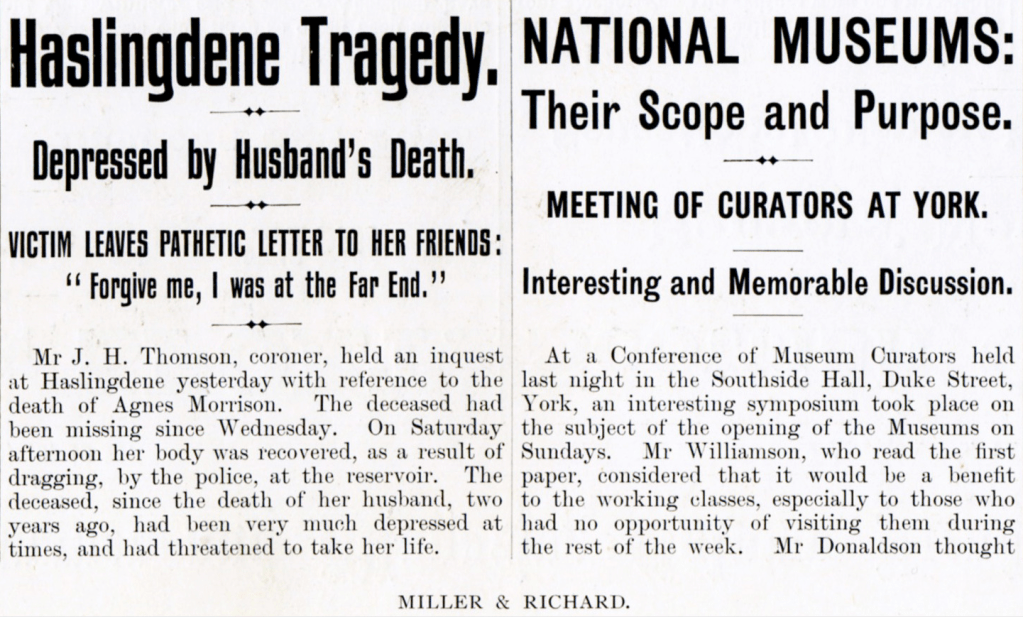
Richard Austin cut early and distinctive types first shown in William Miller’s specimen books from 1813. These typically had a strong vertical axis, and a contrast between strokes. Unlike Bodoni, for example, they also had bracketed serifs, rather than sharp lines.
This style of type was the dominant look for newspaper and book composition for a long period, with M&R themselves providing the relief from these Scotch Romans with their ‘Old Styles’ from about 1860.
Such was their domination in newspaper types, that it was 1929 before The Times looked to refresh the face they used. This was an 1850 Miller and Richard face that had been re-cut by Monotype (as Monotype Series No. 7) in 1908. The lead for this re-work, Stanley Morison, was determined to keep the retain the proportions of this M&R design2.
Old Style
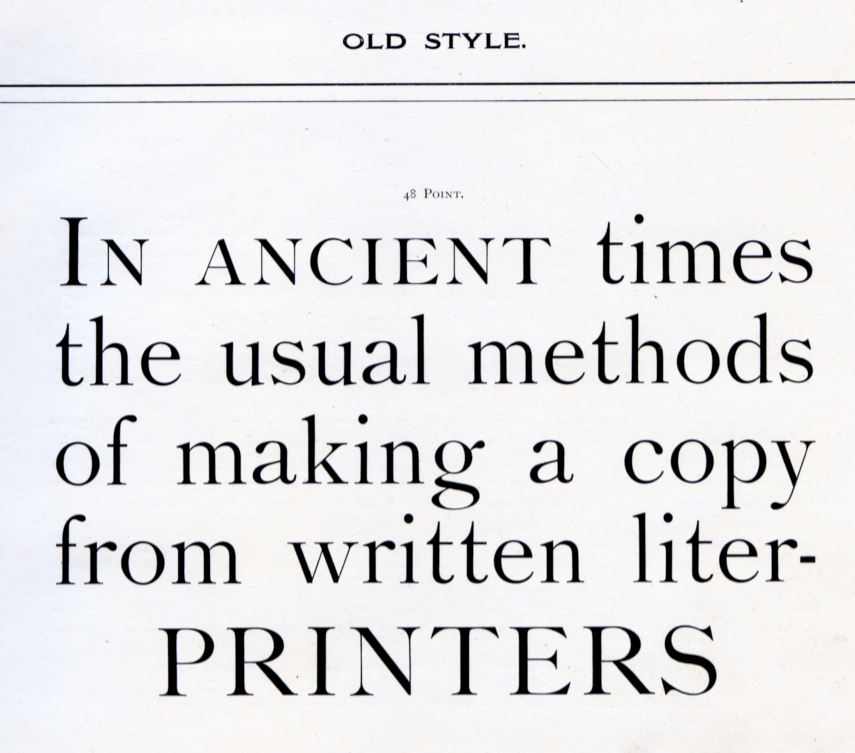
In 1860 Miller and Richard issued Old Style. It had been cut by Alexander Phemister and was shown in eight sizes from pearl (5pt) to great primer (18pt). The Miller and Richard Old Style was a great success. As other founders saw the demand this was driving, they each cut their own particular versions.
“they [Miller & Richard] have endeavoured to avoid the objectionable peculiarities, whilst retaining the distinctive characteristics of the mediæval letters”
Recent/20th Century
Having made a significant typographic impact on the face of Britain’s printing, M&R, in common with other British typefounders, struggled with competition from increasing mechanisation as the linecasting and Monotype machines took the place of metal types cast individually and assembled by hand.
The firm changed shape in 1926 when they approached Stephenson, Blake of Sheffield to ask them to cut woodletter in their Sheffield woodworking shop that had been established in 1907. Just over ten years later, Miller and Richard closed their London warehouse in Water Lane, Ludgate Hill. This had been their London base since 1885.
Roy Millington suggests3 that “[M&R] gradually transferred their casting operations to Sheffield” from 1938, so I am unsure as to what specifically was being made in Edinburgh in these 14 years between 1938 and final closure.
On Sunday 9th of December, 1951, Alan Richard Miller, the sole remaining partner of the Miller & Richard business passed away at a nursing home in Edinburgh. Miller had served with the 10th Royal Scots in the first World War with whom he had been gassed, and he was noted as a proficient farmer, fisher and shot.
The small woodworking items, reglet and furniture remained with a local firm, but Stephenson, Blake took delivery of most of the M&R matrices in 1952. Only a few of Miller and Richard’s faces were issued by Stephenson, Blake and it is reported that most of the mats were unusable4.